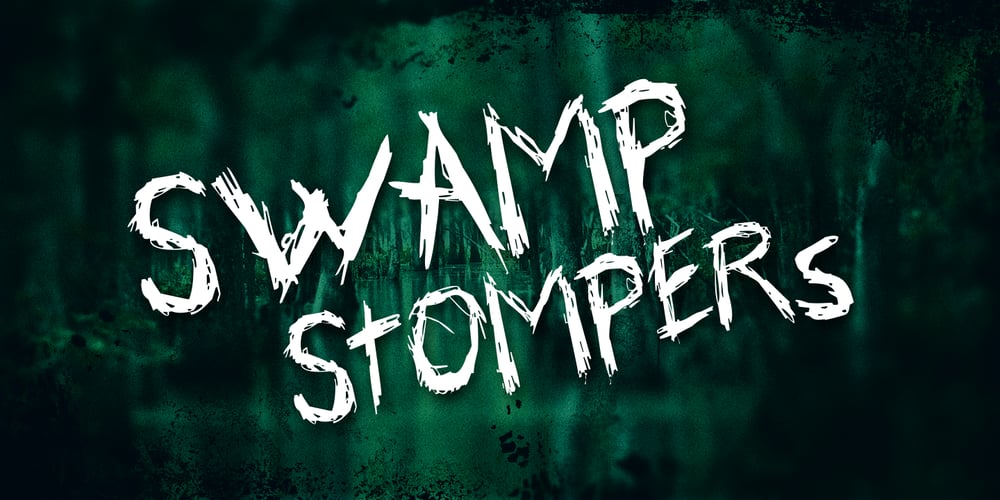
Skribler
Skribler font
Skribler Font Family was designed by Todd Dever and published by Cool Fonts. Skribler contains 1 styles and family package options. Here’s a scratchy skribly font you can use to make something look grungy or use it reversed and it looks like it was scratched on a wall or something.